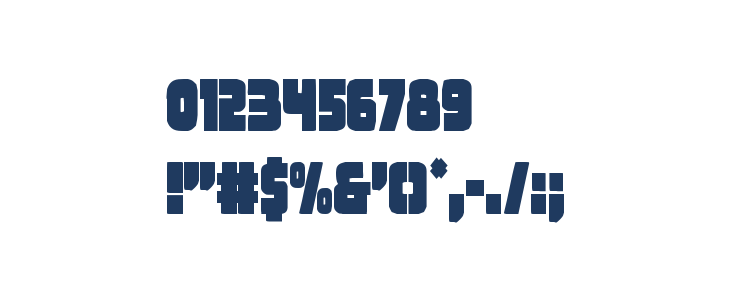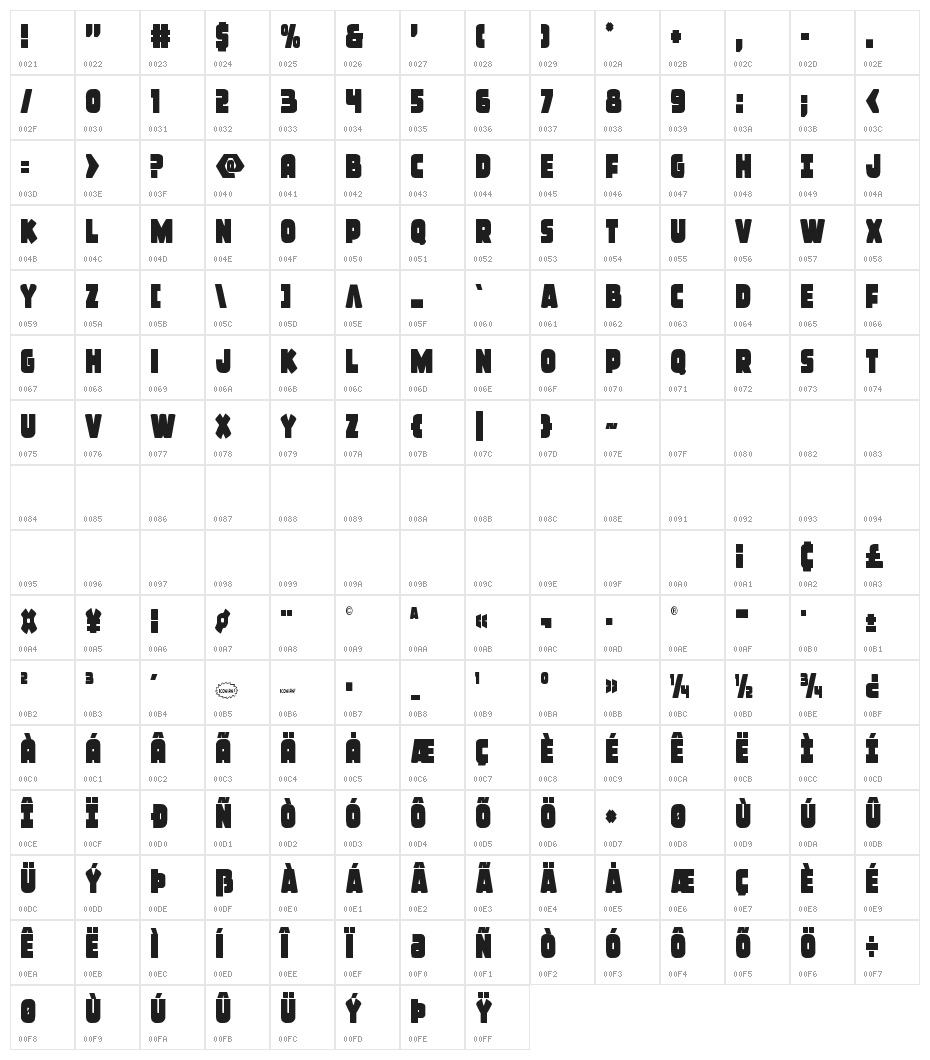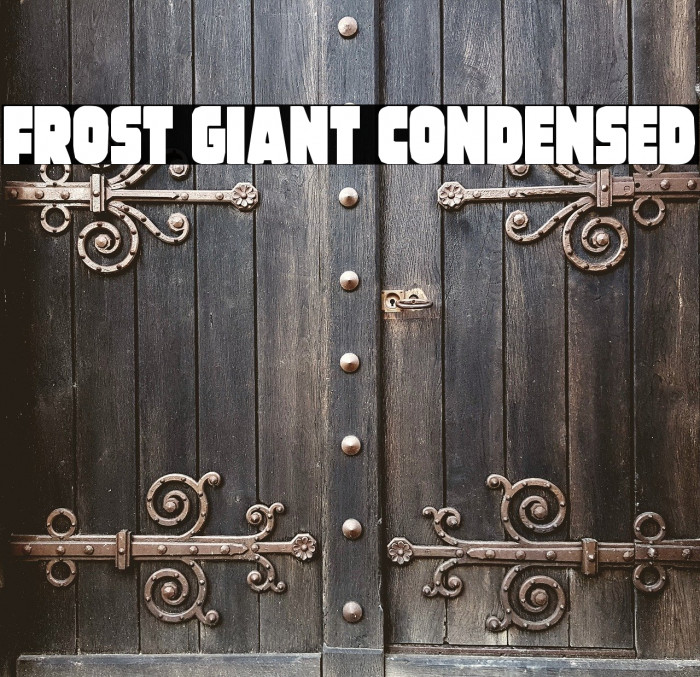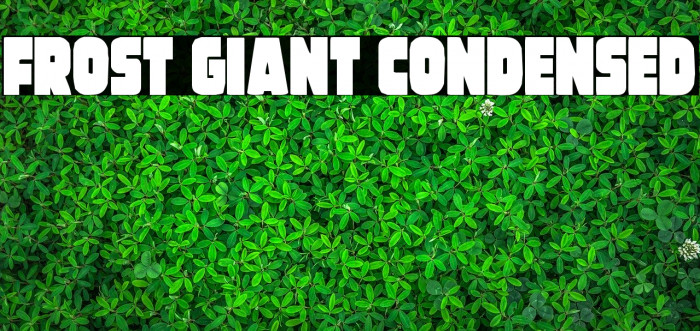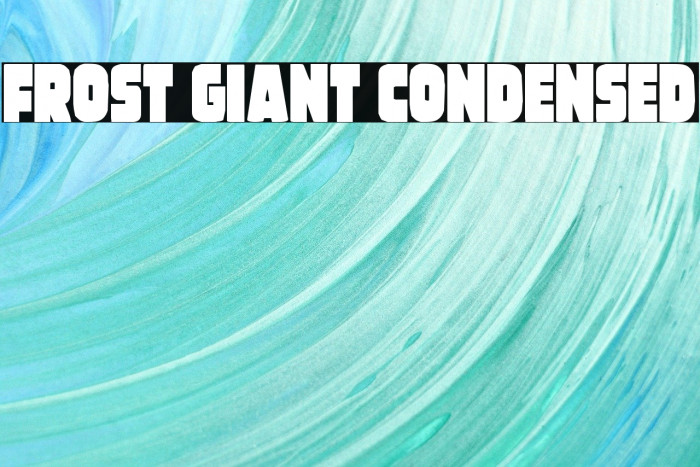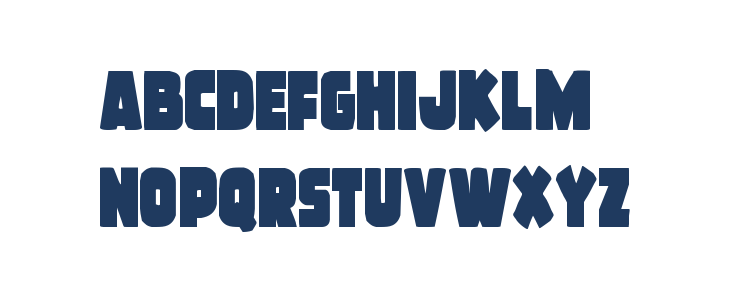
Frost Giant Condensed Font
Frost Giant Condensed Description
This font is a bold, condensed typeface with a strong, impactful presence. The characters are uniformly thick, providing a robust and solid appearance. The uppercase letters are particularly striking, with a blocky, geometric style that commands attention. The numbers and special characters maintain this boldness, ensuring consistency across all glyphs. The font's condensed nature allows for efficient use of space, making it ideal for headlines or titles where impact is essential. Its design is straightforward yet powerful, with minimal contrast in stroke thickness, emphasizing its boldness and readability.